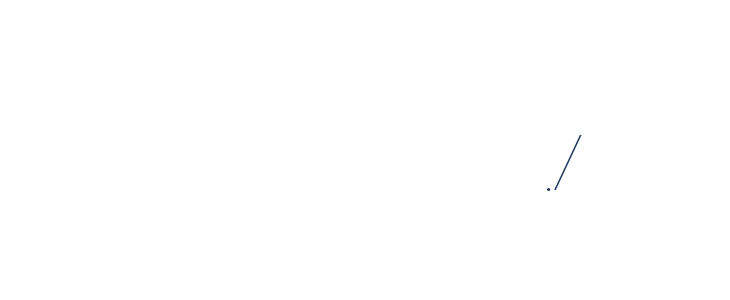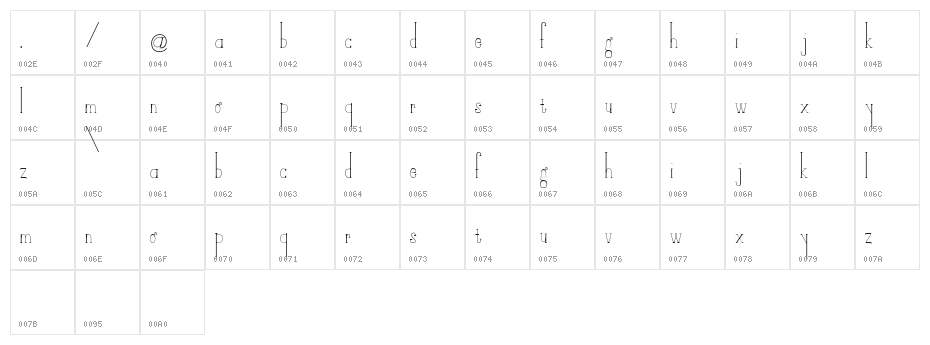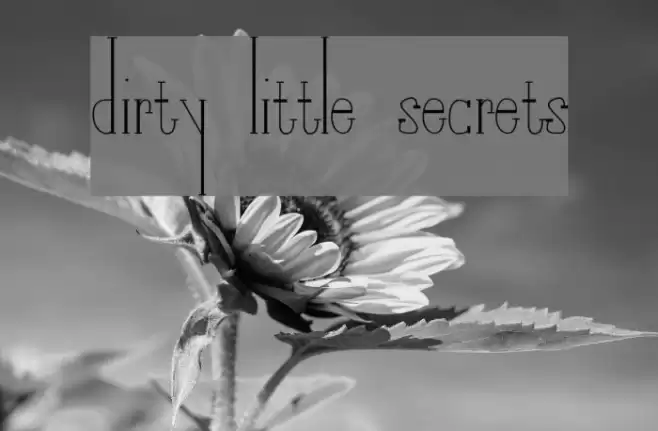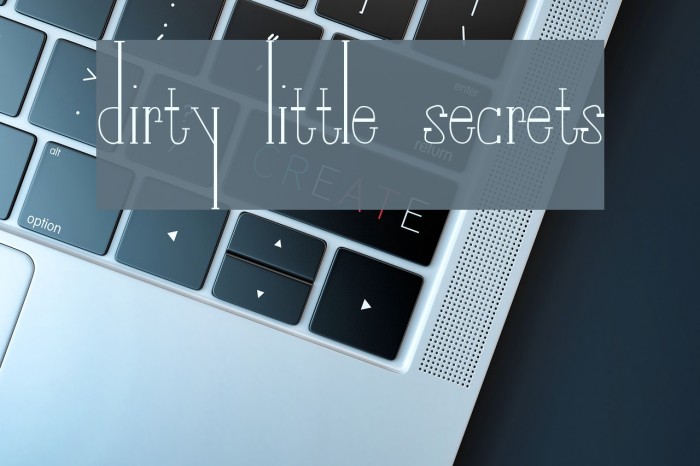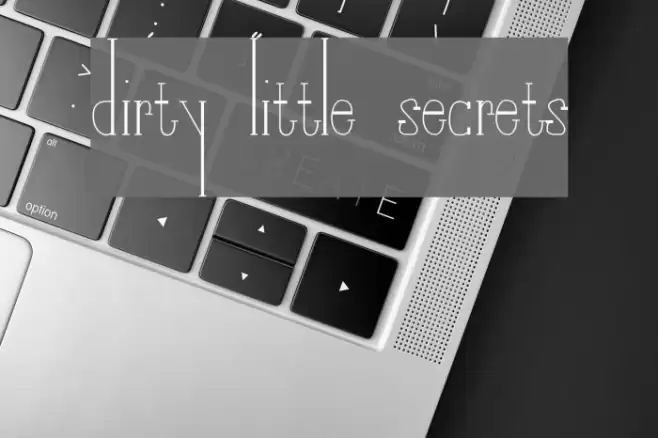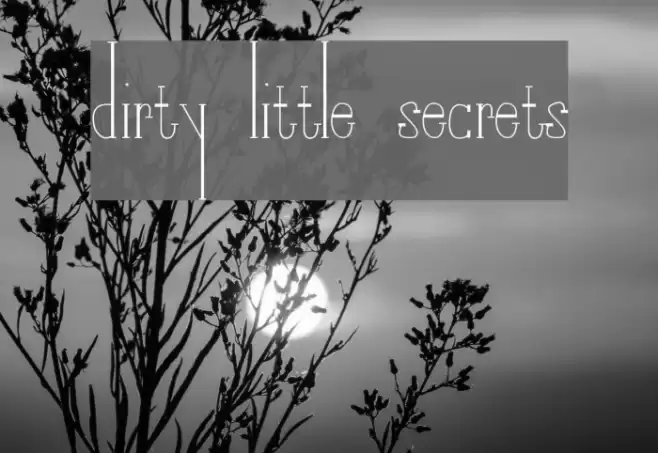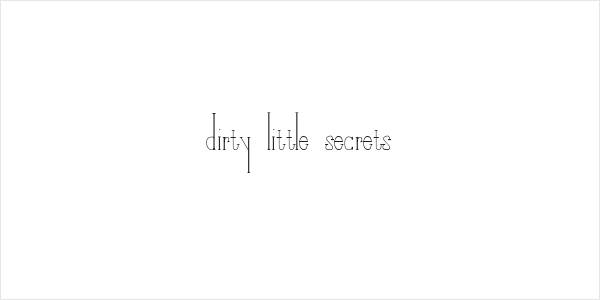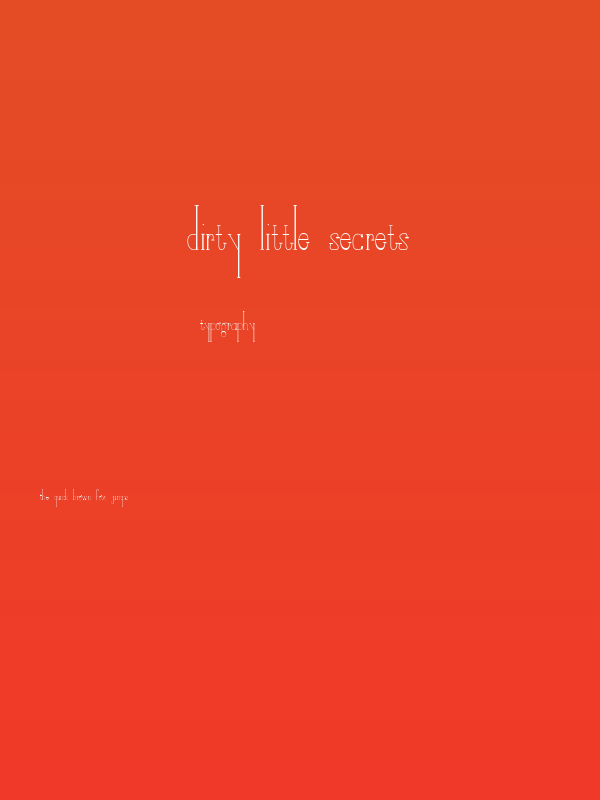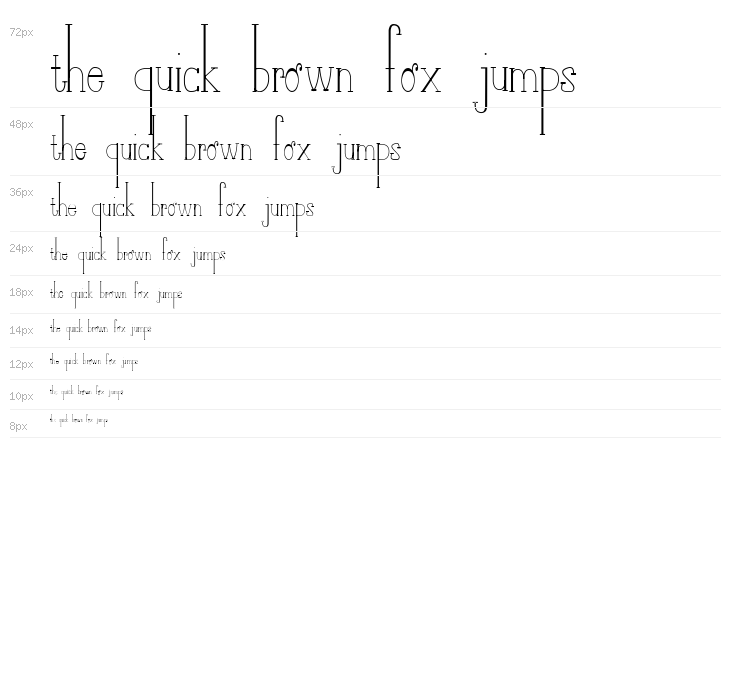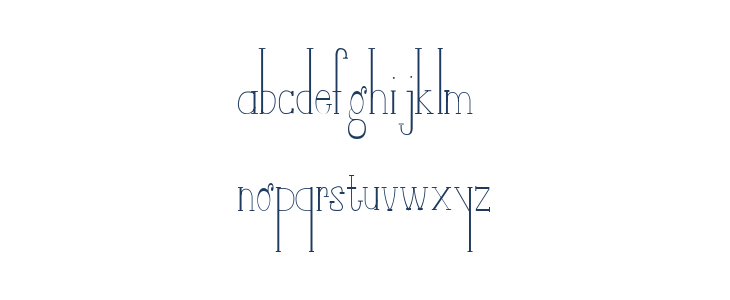
Dirty Little Secrets Font
Dirty Little Secrets Description
This font features a unique and playful design with elongated ascenders and descenders, giving it a whimsical and artistic appearance. The characters are thin and delicate, with a consistent stroke width that adds to its elegant and airy feel. The lowercase letters have a distinctive style, particularly the 'g' and 'j', which showcase a creative flair. The font maintains a consistent baseline, and the spacing between characters is balanced, allowing for readability while maintaining its decorative nature. The overall style is modern and artistic, making it suitable for creative projects that require a touch of sophistication and uniqueness.
| Use Case | Logos, Artistic projects, Invitations |
| Proposed Projects | Ideal for creative projects such as invitations, greeting cards, artistic posters, and branding materials that require a unique and elegant touch. |